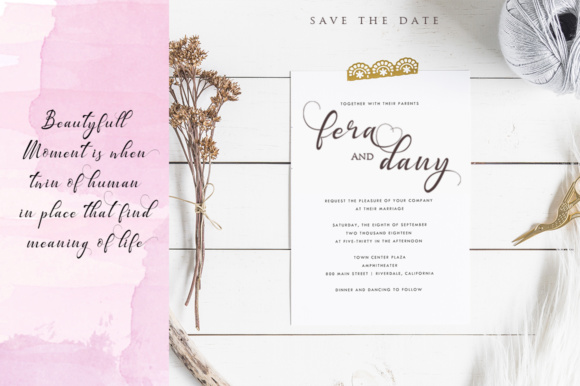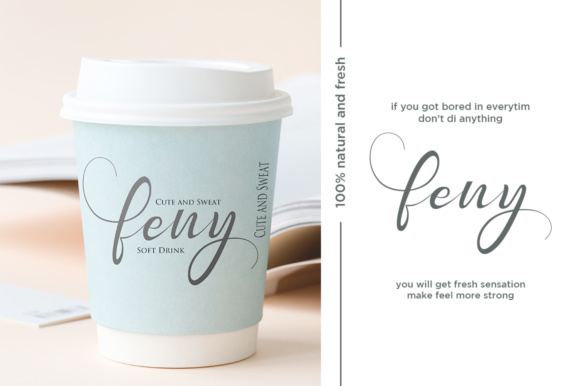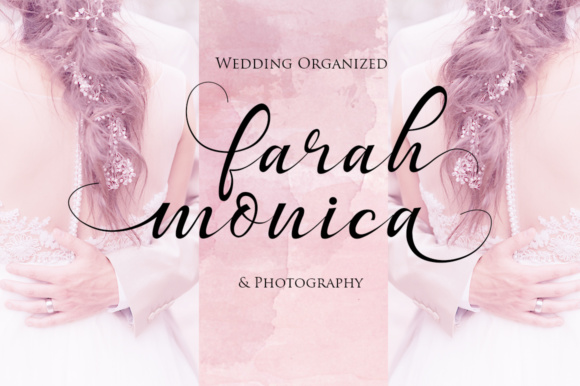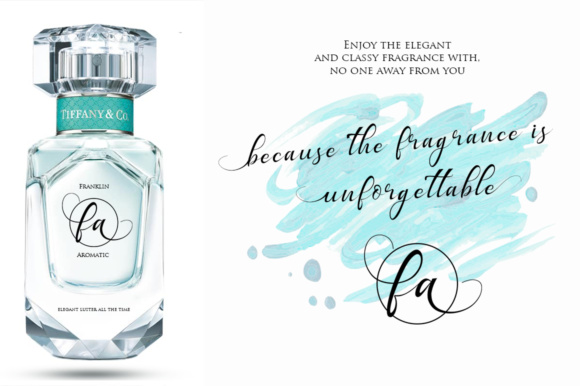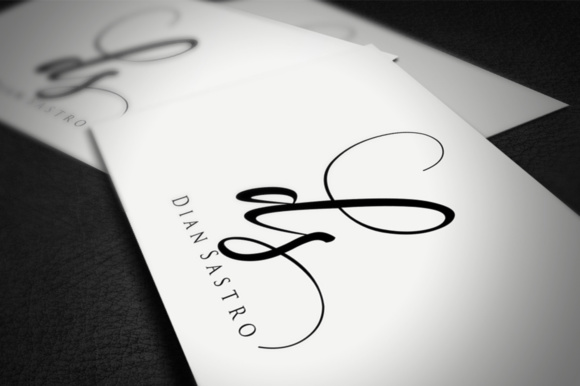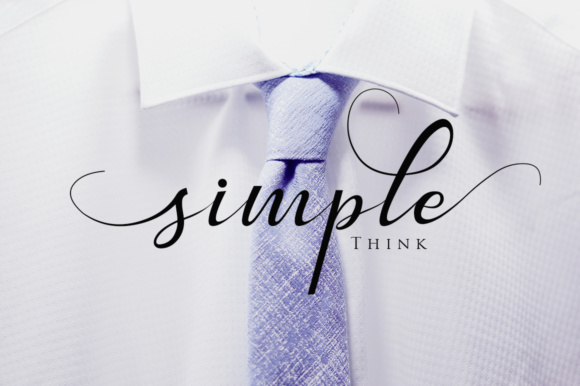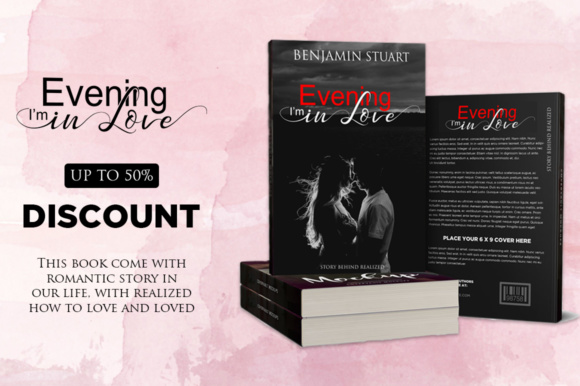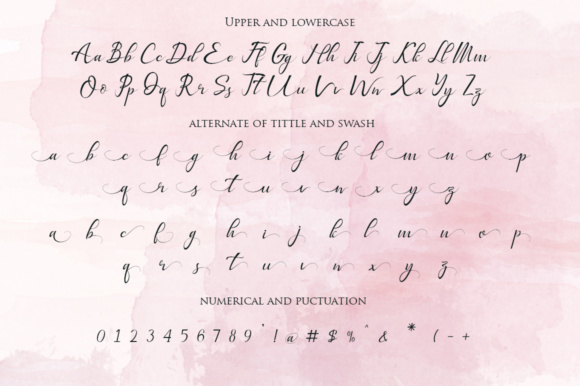
Bestalia Font
About Bestalia Font
Bestalia is a beautiful and swashy display font, suitable for a wide range of project types! This calligraphy font looks best in romantic and delicate themes, and pairs well with both serif and sans serif types.